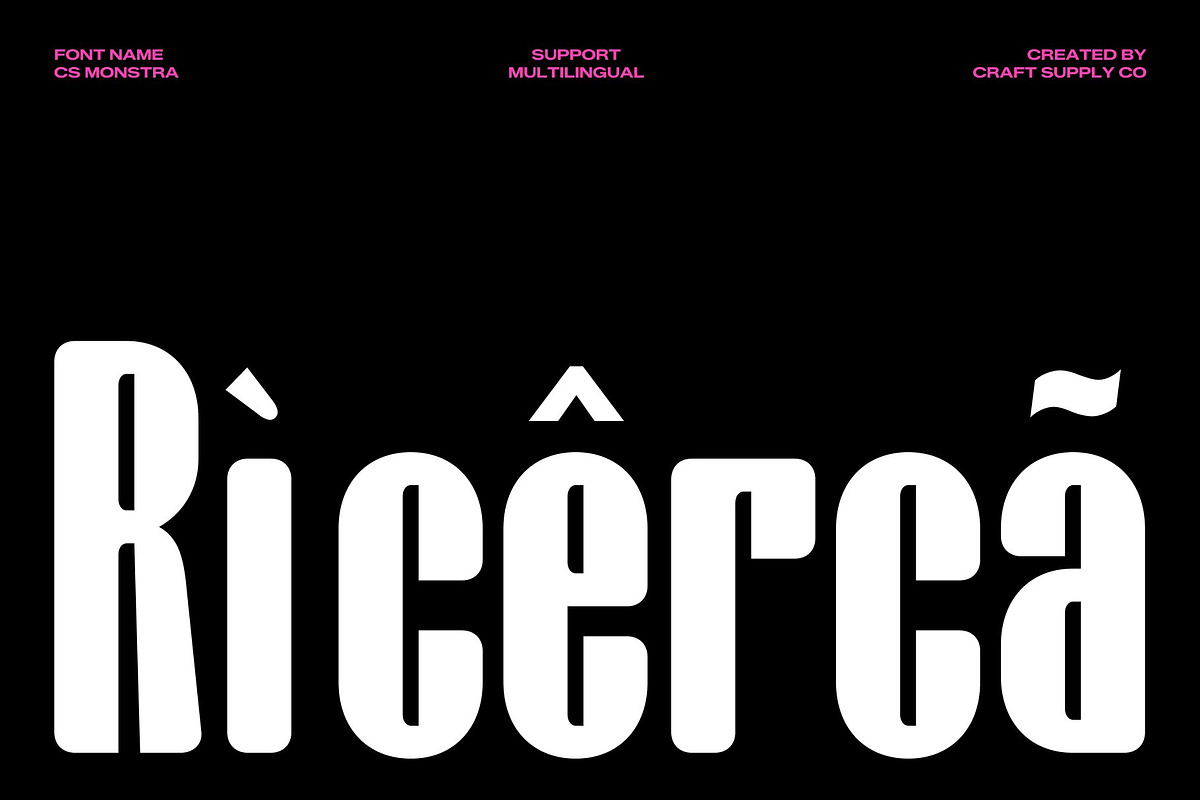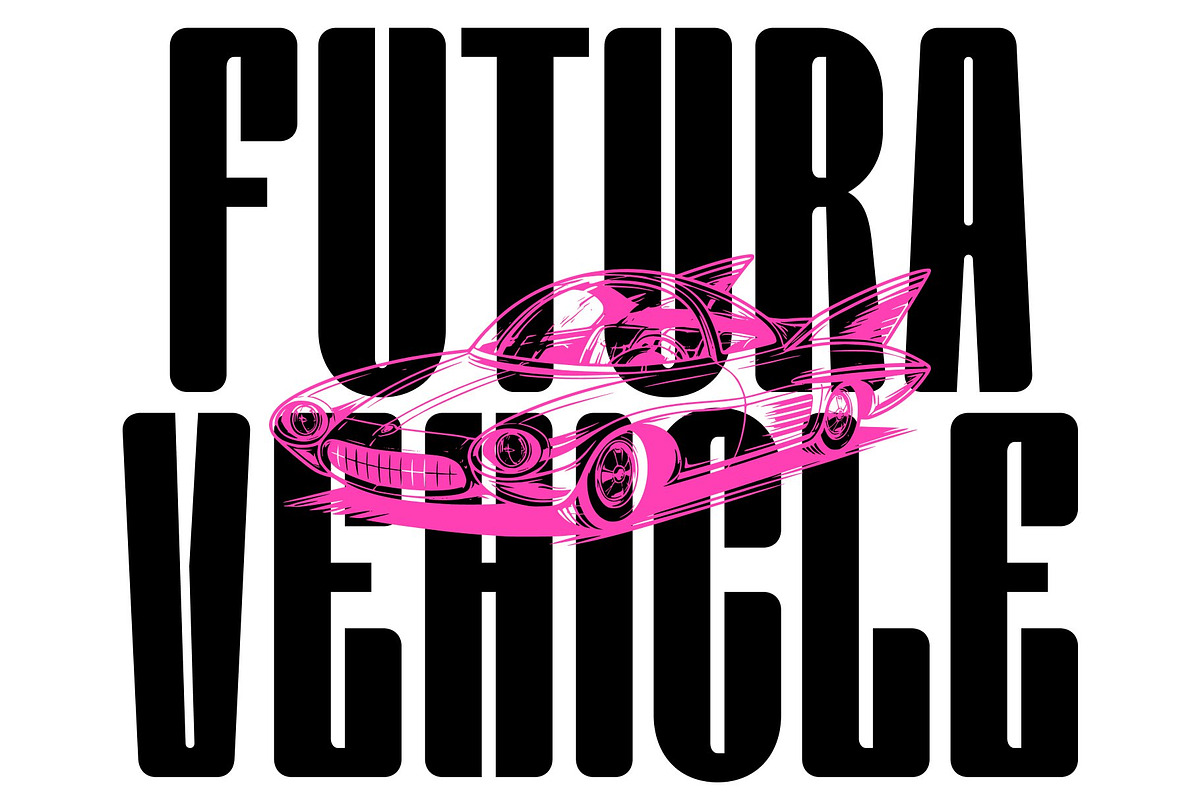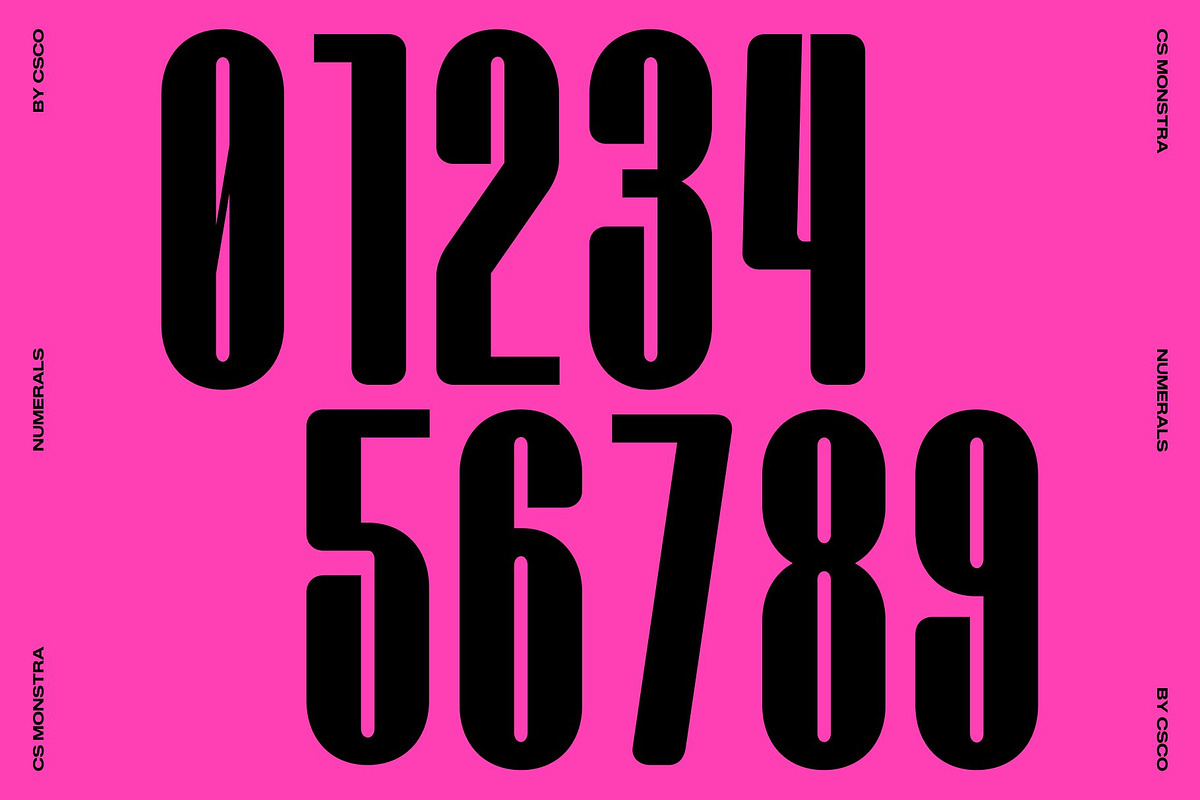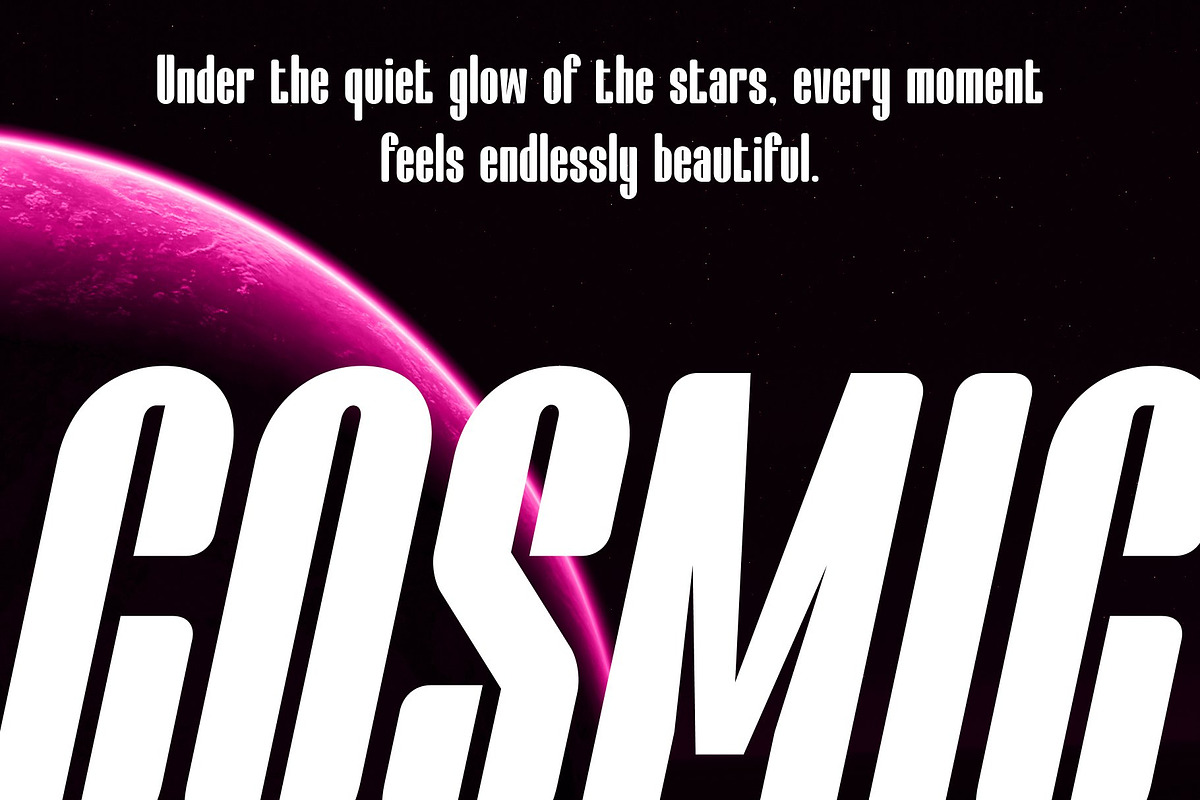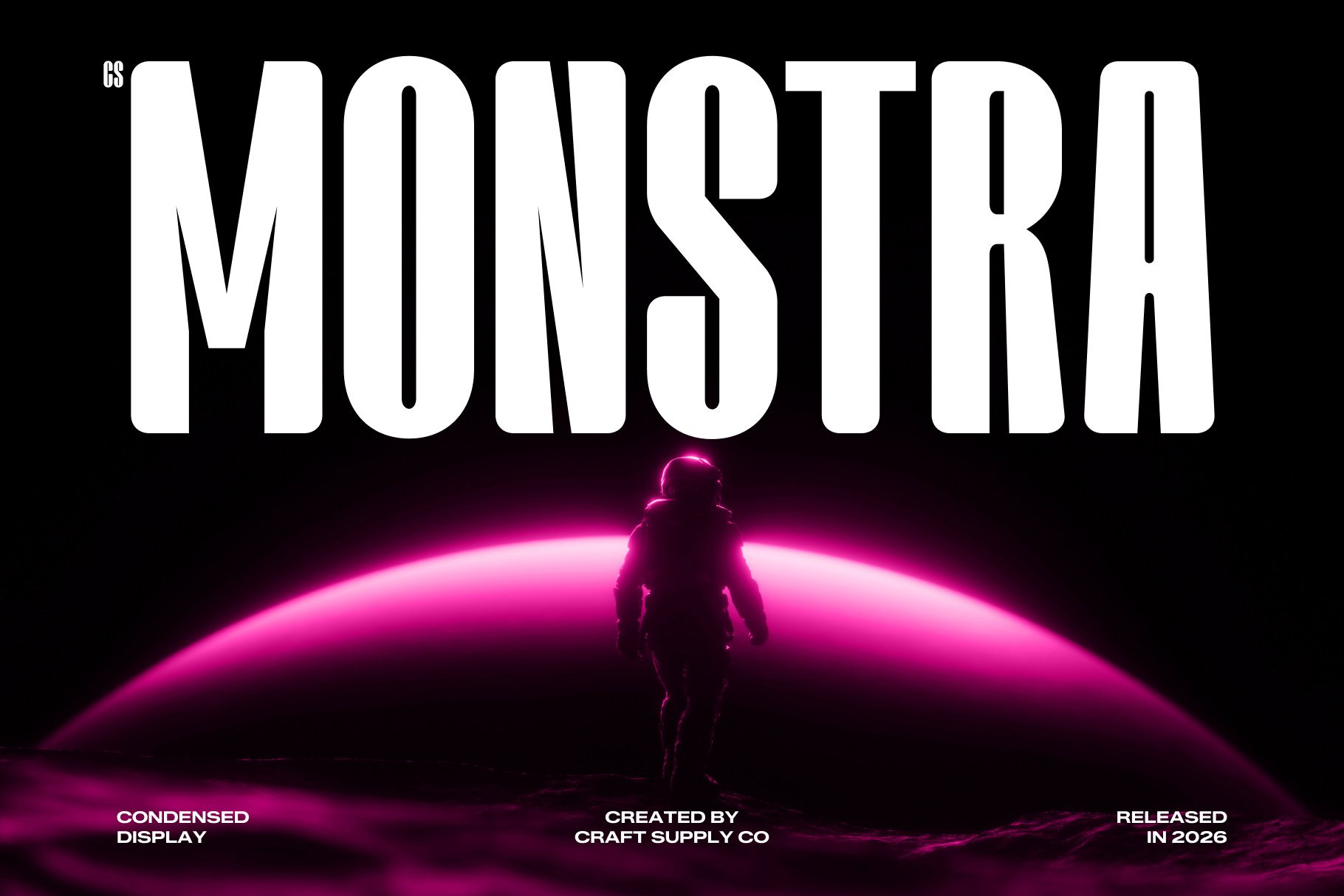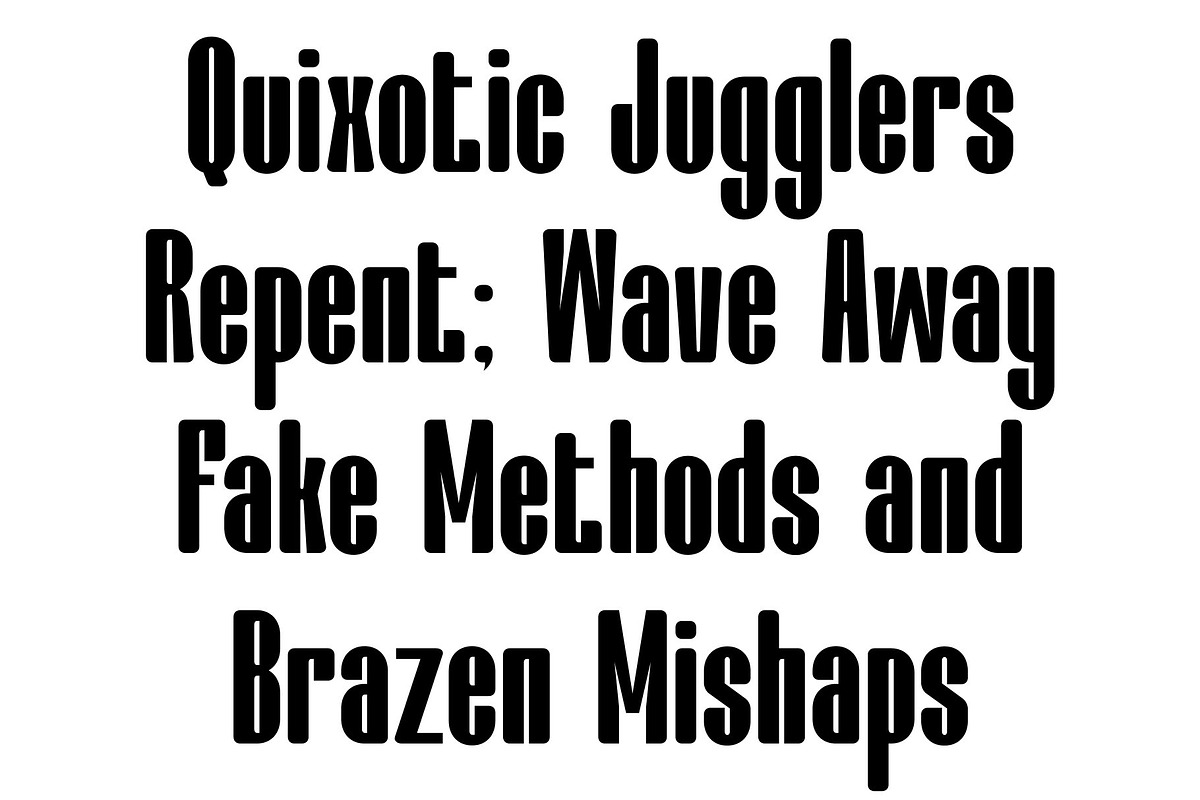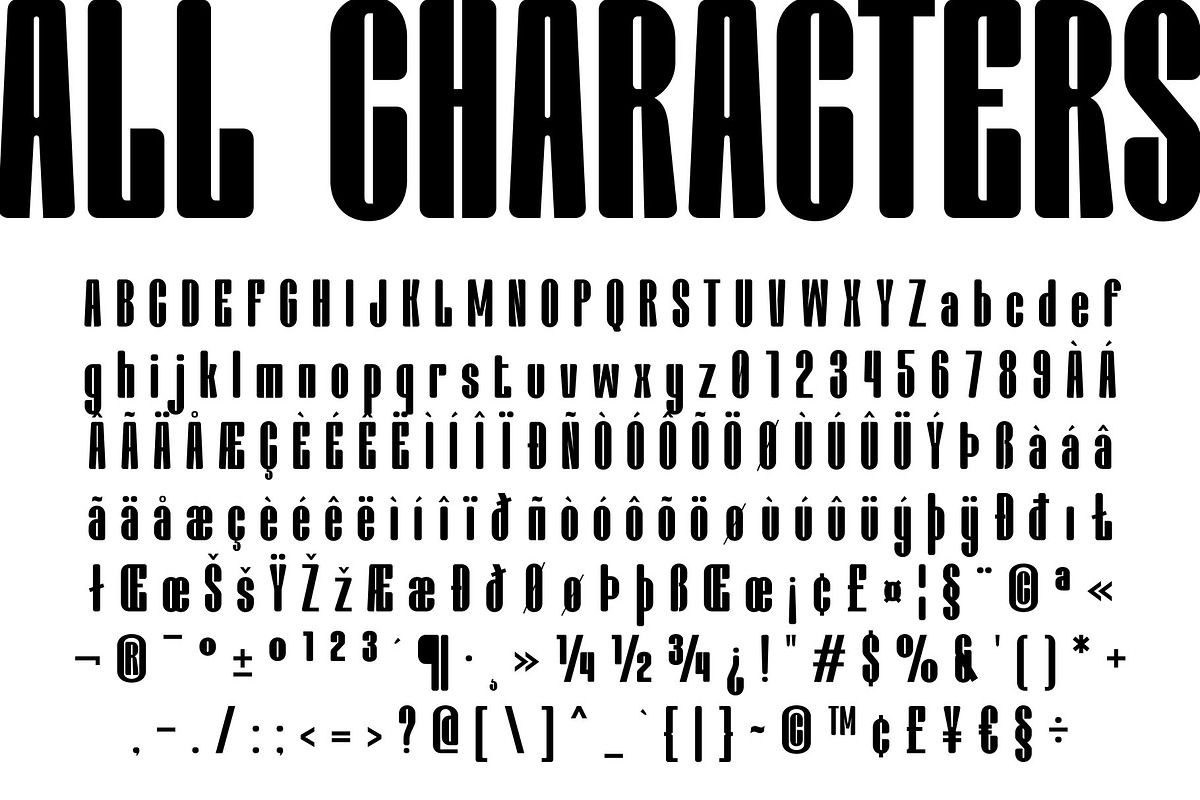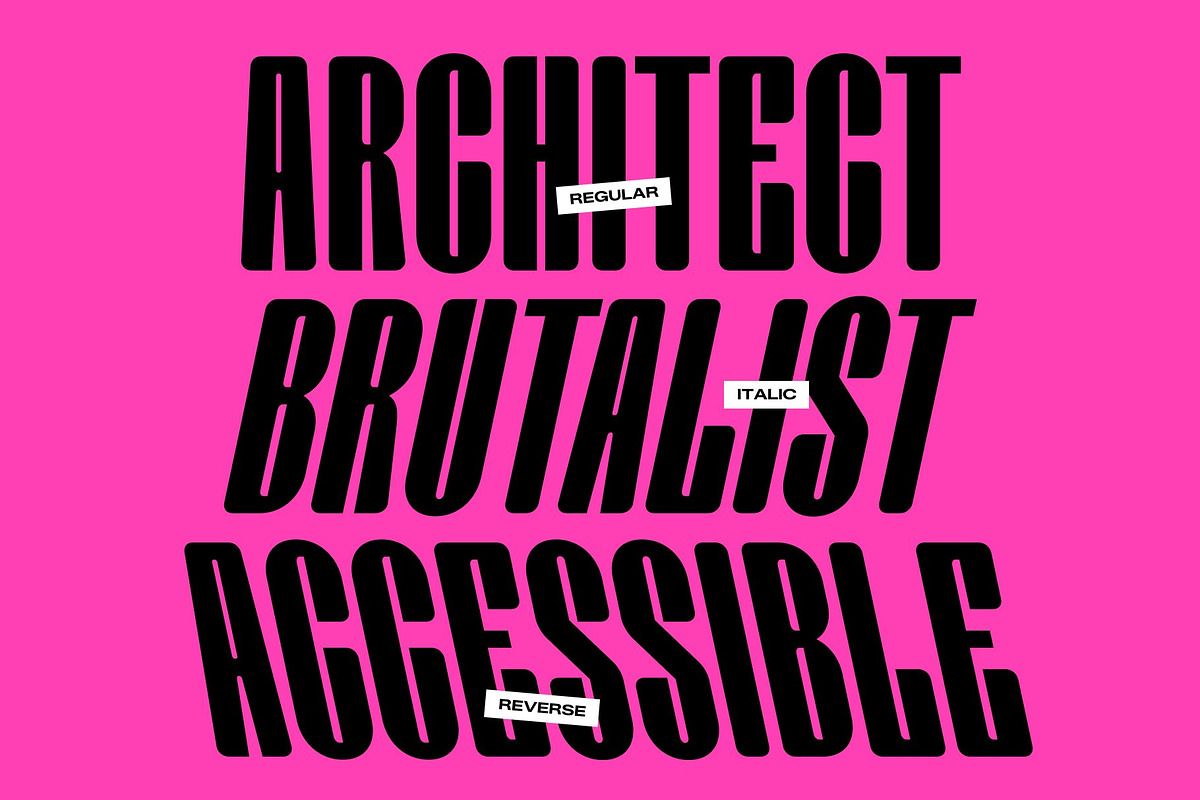
CS Monstra – Condensed Font
CS Monstra – Condensed Sans Serif Font: Where Compact Precision Meets Bold Modern Impact
Compact Proportions with Powerful Visual Presence This is a condensed sans serif font designed to deliver maximum impact in minimal space. Its narrow proportions and bold structure create a clean, modern appearance that feels strong, efficient, and highly attention-grabbing. Every character is crafted to maintain clarity while maximizing visual presence, making the font ideal for bold display applications and compact layouts.
Modern Simplicity with Functional Readability This font offers a typographic style that feels contemporary, professional, and versatile. Its balanced forms preserve readability even in tight compositions, allowing the font to perform beautifully across both large headlines and space-constrained designs.
Bold Structure with Editorial Energy The bold condensed structure gives a dynamic and commanding personality perfect for modern editorial and promotional visuals. Its strong vertical rhythm creates a sleek and impactful atmosphere that enhances layouts with confidence and modern sophistication.
Perfect for Headlines, Posters, and Compact Interfaces This font perfect for high-impact headlines, editorial layouts, poster designs, branding, magazine titles, and space-constrained user interfaces. Its condensed proportions and modern clarity make it ideal for logos, advertising campaigns, packaging, and contemporary visual identities that require both efficiency and boldness.
CS Monstra Regular
CS Monstra Italic
CS Monstra Reverse Italic